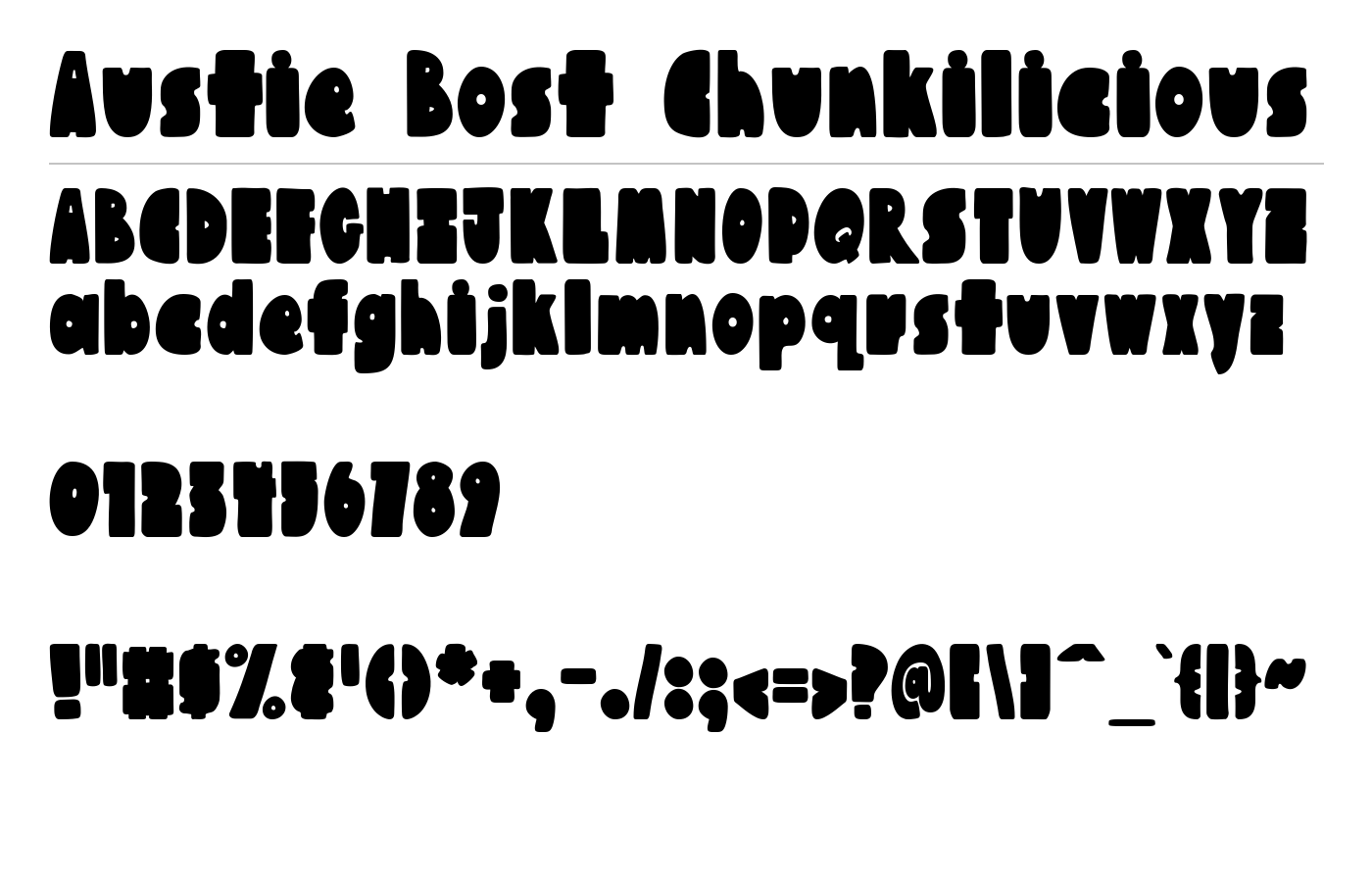
Austie Bost Chunkilicious Bounce is a bold, chunky sans serif font with a playful, informal vibe. Its heavy weight and rounded, irregular shapes give it a fun, bouncy personality perfect for catching attention in headlines, posters, or children's designs. This font works well where a lively, friendly tone is needed to create an engaging and approachable feel.
Austie Bost Chunkilicious Bounce Font